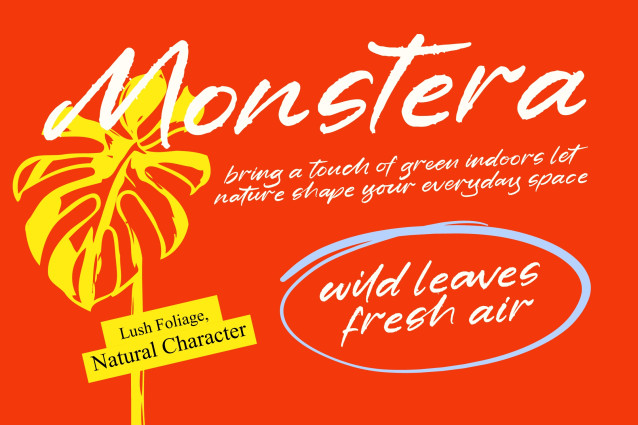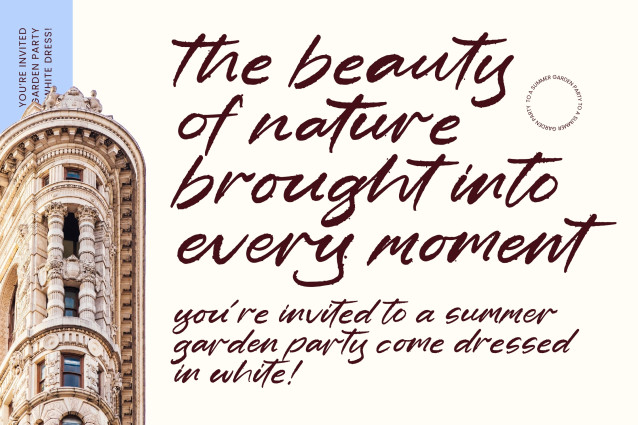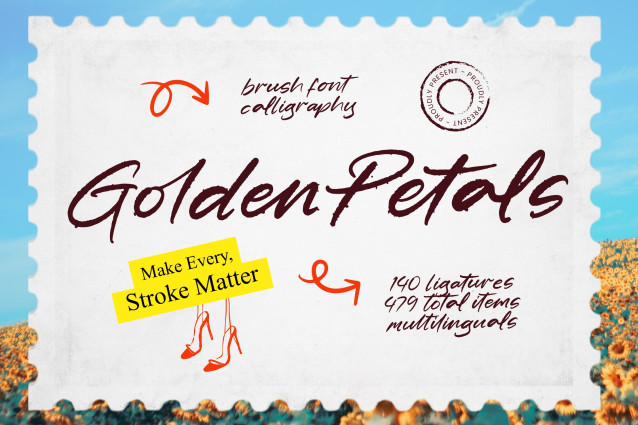
Elevate your creative vision with a typeface that embodies raw elegance and artistic flair. Golden Petals – Brush Font Calligraphy is a masterclass in organic texture and dynamic strokes, offering a hand-drawn aesthetic that feels both personal and professional. By blending expressive calligraphy with a refined contemporary edge, this font ensures that every headline commands attention. Its natural flow and authentic brushwork provide a unique personality that sets your designs apart from generic digital scripts.
Precision-engineered for high-impact visual storytelling, this font is the ultimate tool for modern designers. Golden Petals – Brush Font Calligraphy is perfect for luxury branding, high-end packaging design, and sophisticated editorial layouts.
Whether you are crafting a standout logo for a boutique brand or designing invitation suites for exclusive events, its versatile nature adapts to various creative needs. It also excels in social media graphics, lifestyle photography overlays, and fashion advertising, where a touch of handcrafted charm is essential for building brand authenticity.